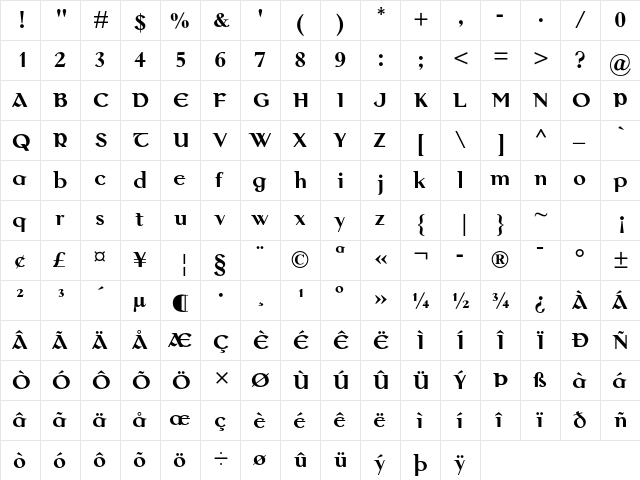
Colmcille MT Std Bold
Design Context for Colmcille MT Std Typeface
Colmcille MT Std is a composed and adaptable typeface that performs quietly and consistently across a wide range of design contexts. Its bold stroke weight gives it real presence on the page.